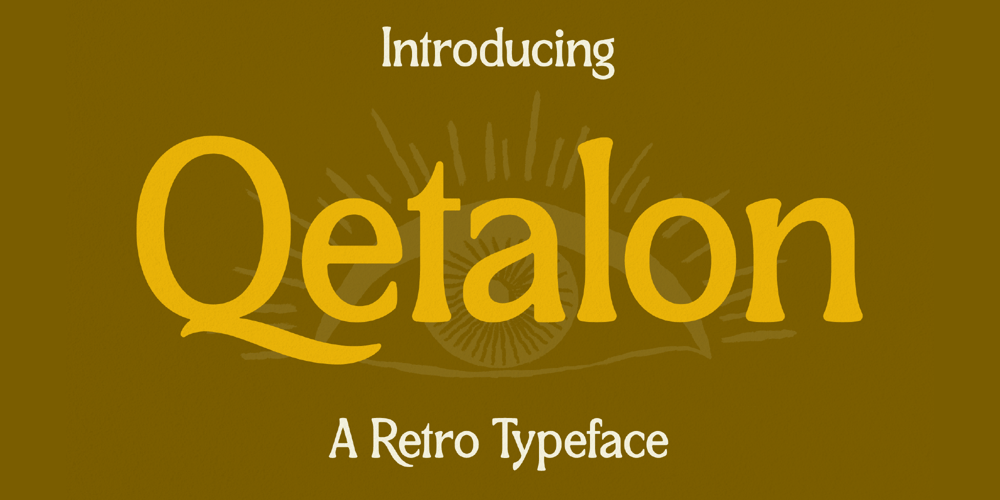
Qetalon Font Family was designed by Heru Utama Putra and published by Letterena Studios. Qetalon contains 2 styles and family package options. Qetalon is a cool and unique retro-style serif font crafted to give your headlines and logotype projects a stylish touch. This font reads as strong, confident, and dynamic and can add tons of nostalgic character to your designs.